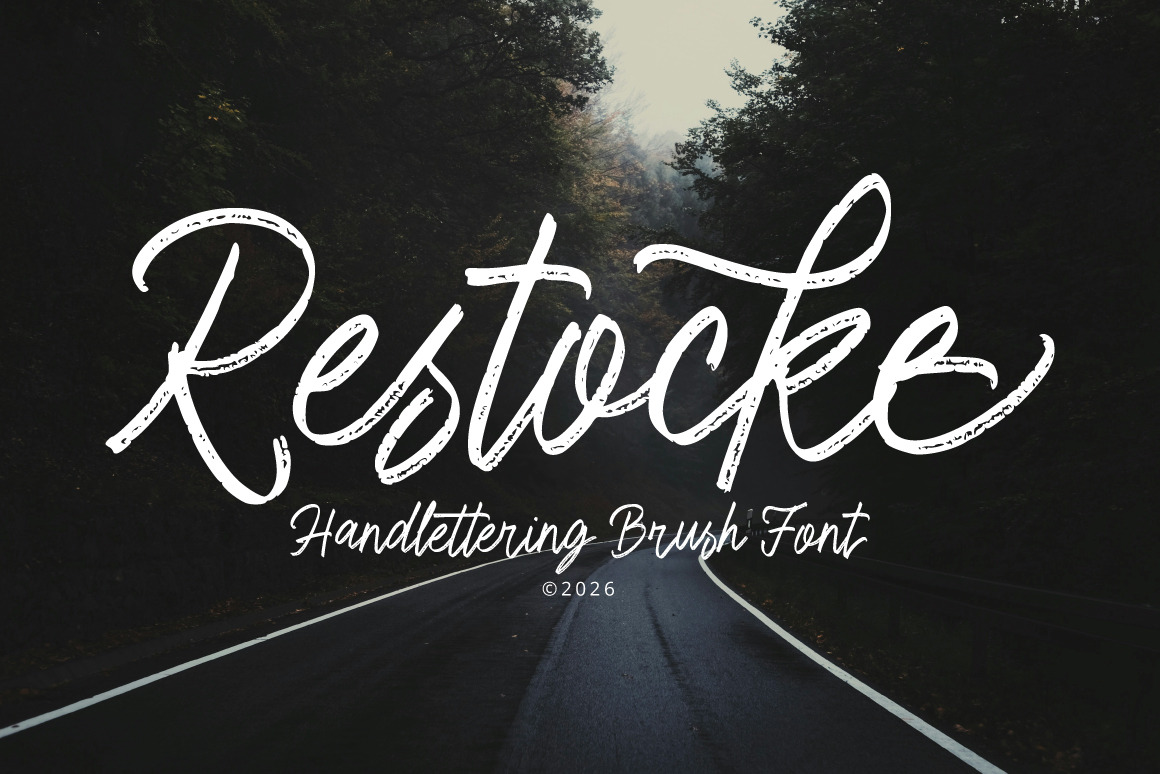
Restocke - Logotype Font
Introducing Restocke Script, a hand-lettered brush font designed to bring warmth, character, and an authentic organic feel to your creative projects. Crafted with expressive strokes and a natural flow, Restocke Script mimics the artistic touch of a real brush on paper, instantly delivering a classy, handcrafted look.
Whether you want to elevate a brand identity, design stunning wedding invitations, create engaging social media content, or add a warm, personal touch to product packaging, Restocke Script is the versatile tool you’ve been waiting for. It is perfect for logotypes, quotes, branding, editorial layouts, and any design requiring an authentic, unique touch.